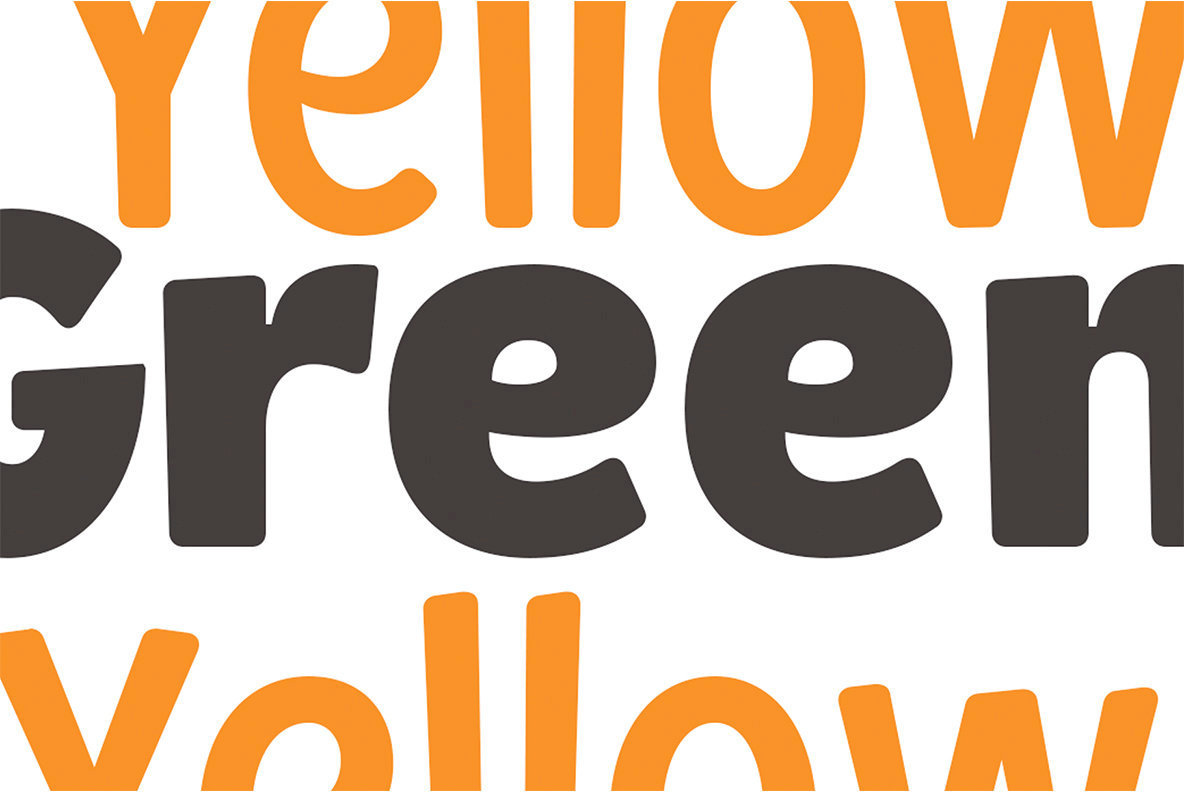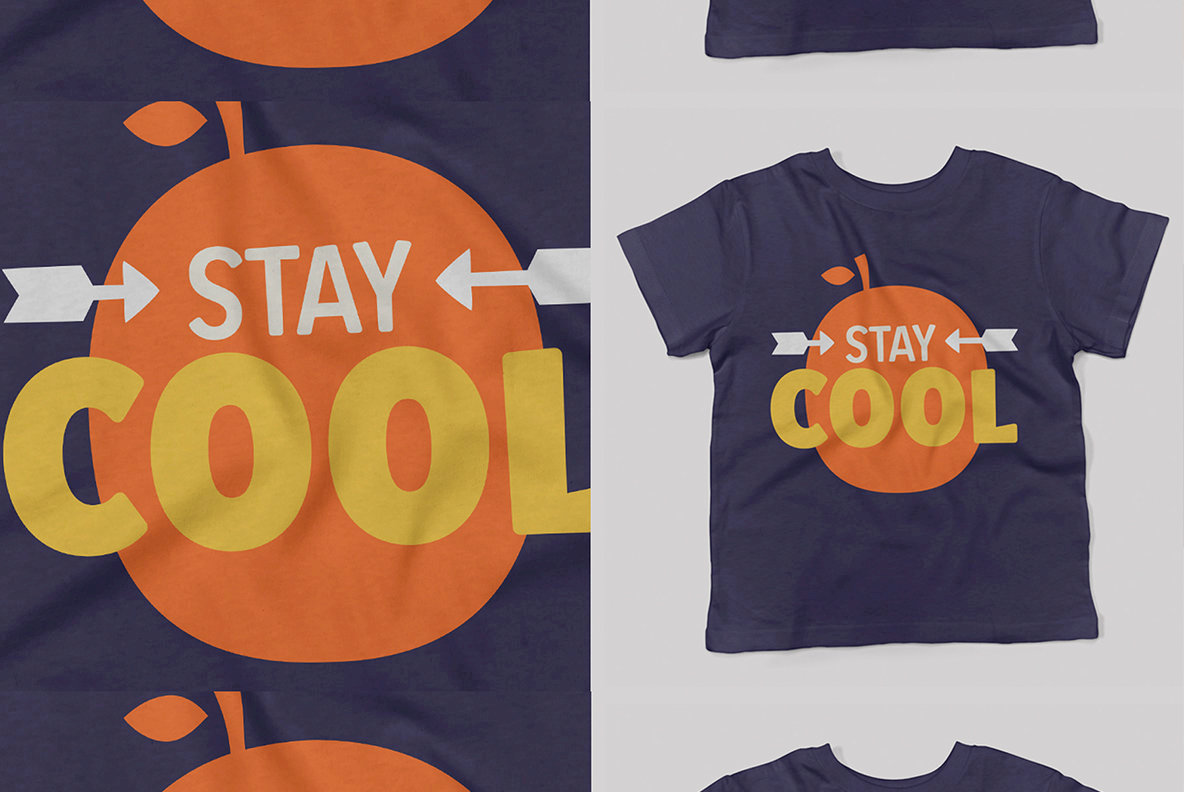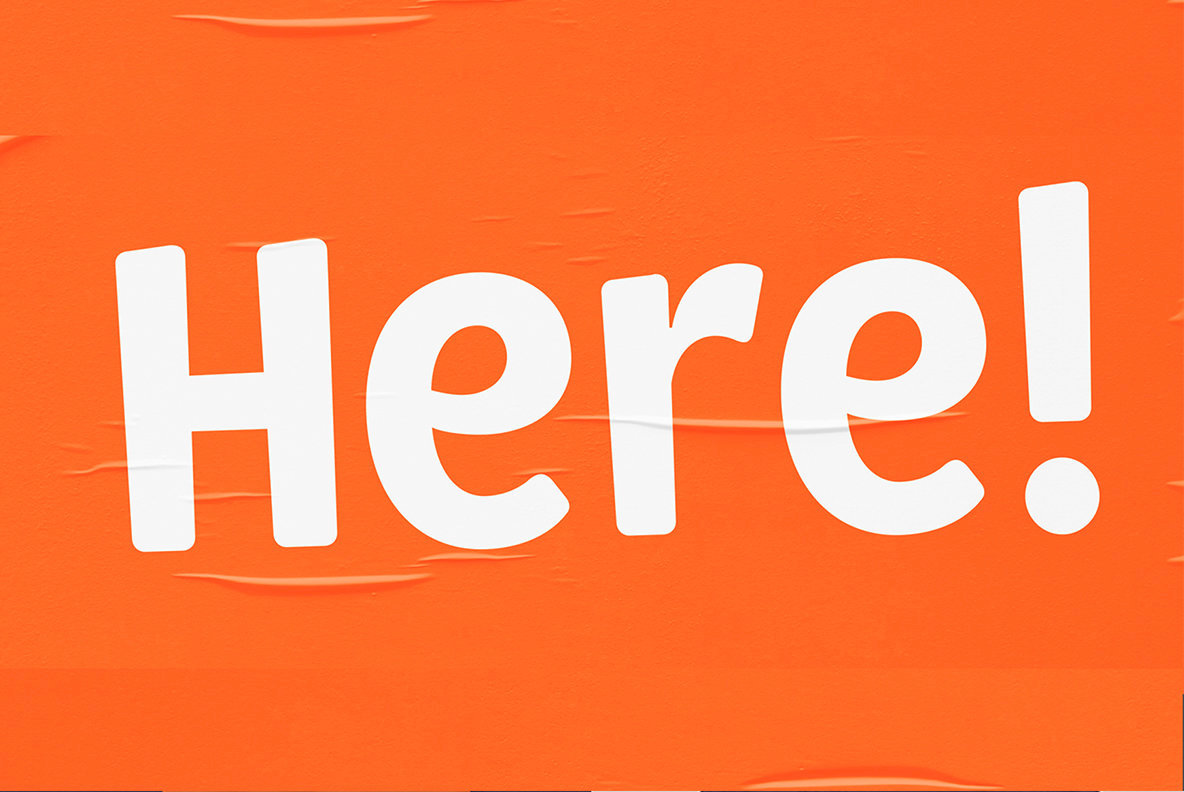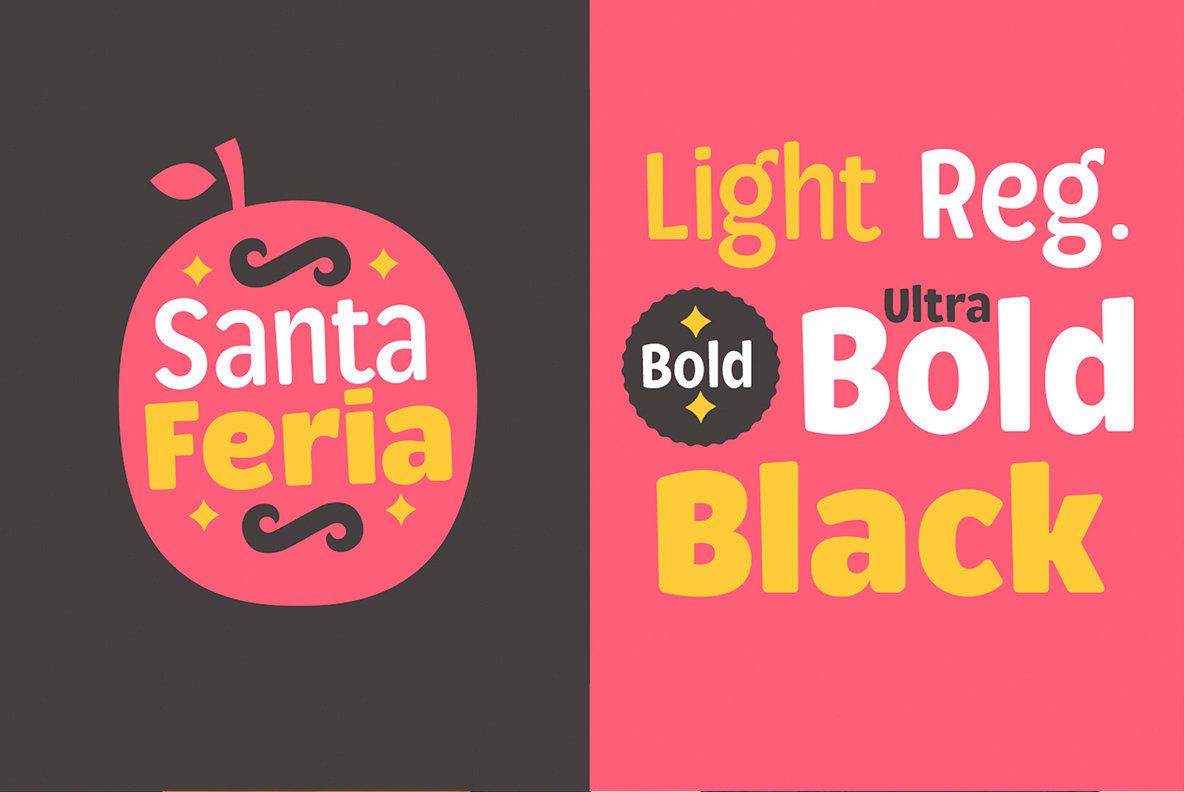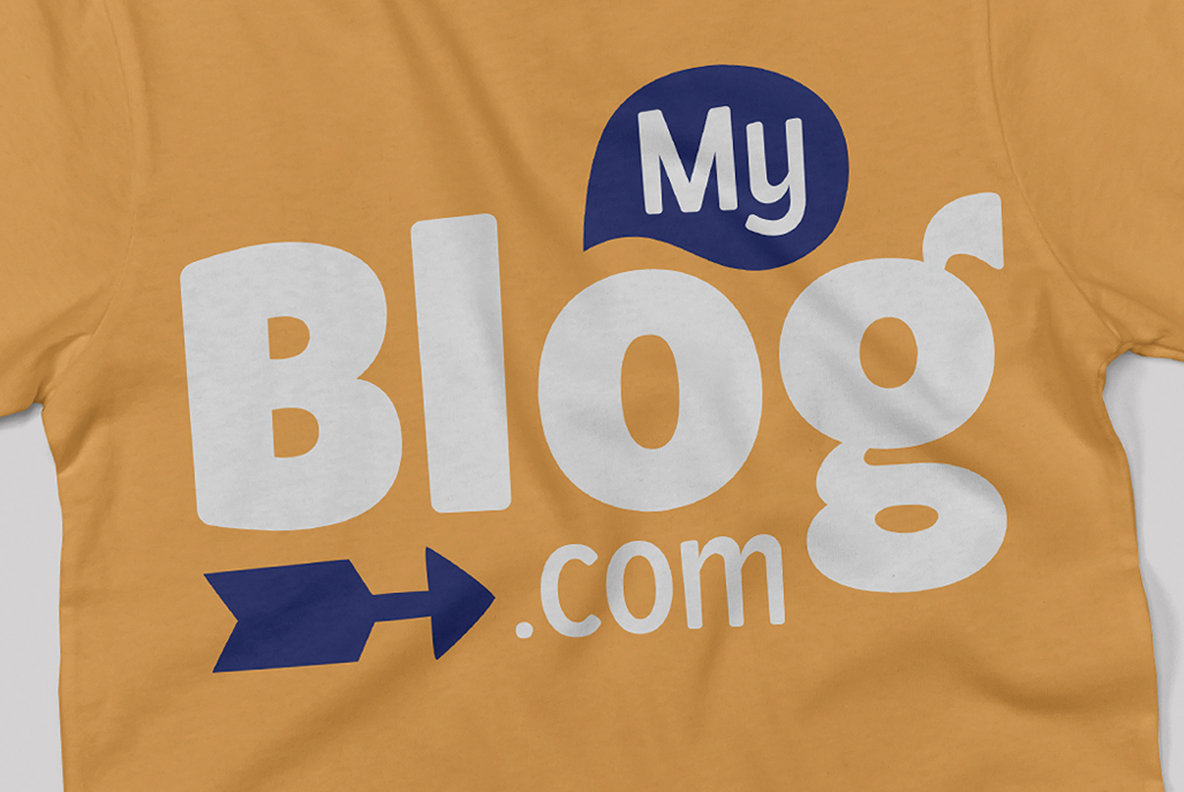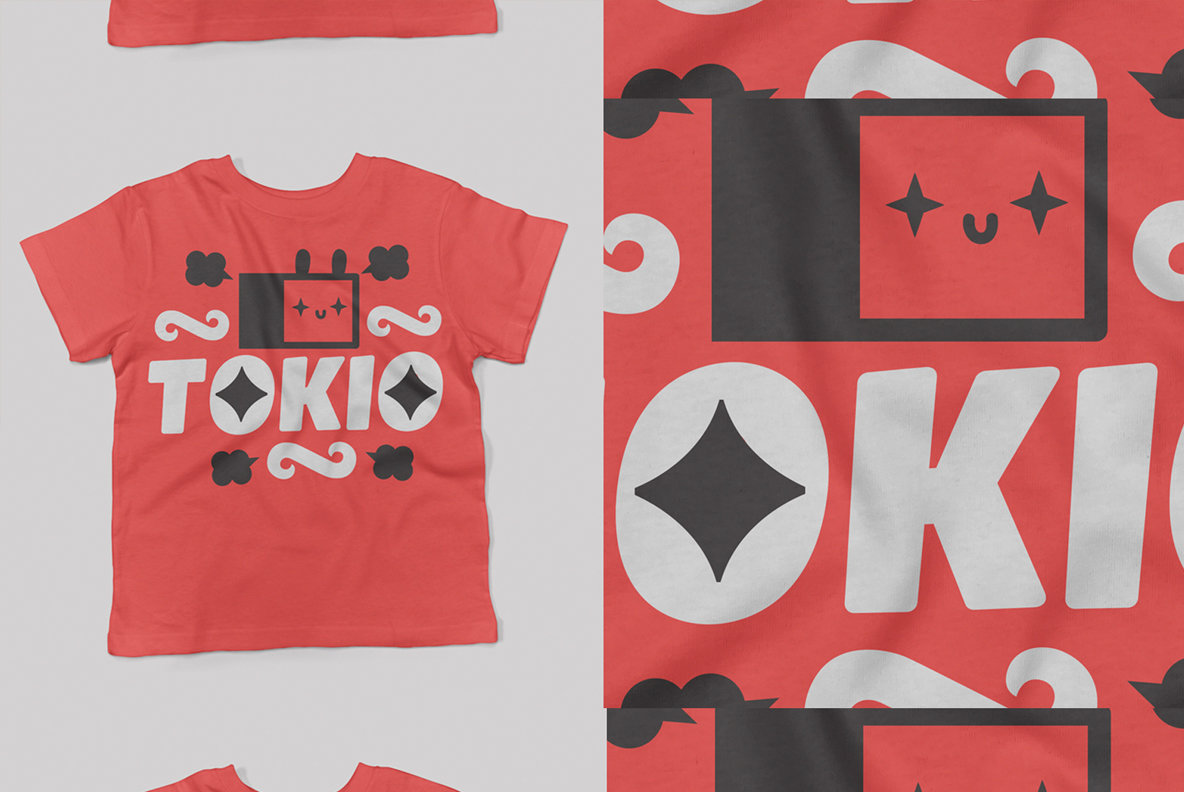
Loyola Round Font
Loyola Round offers a lively superfamily of fonts that spans from light to black weights, creating an ideal solution for vibrant design projects. With its playful dingbats and lively characters, this font is well-suited for short texts and children's titles, making it a perfect choice for use in clothing designs and logos.Loyola Round: Playful Typeface with Versatile Styles